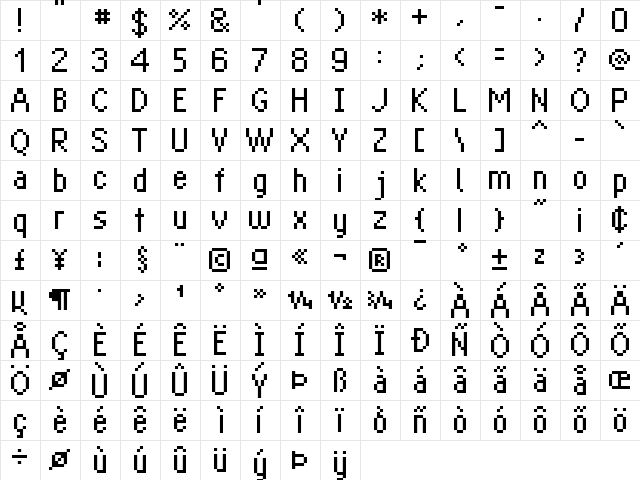
Munica Regular Regular
Design Context for Munica Regular Typeface
Munica Regular is a composed and adaptable typeface that performs quietly and consistently across a wide range of design contexts.